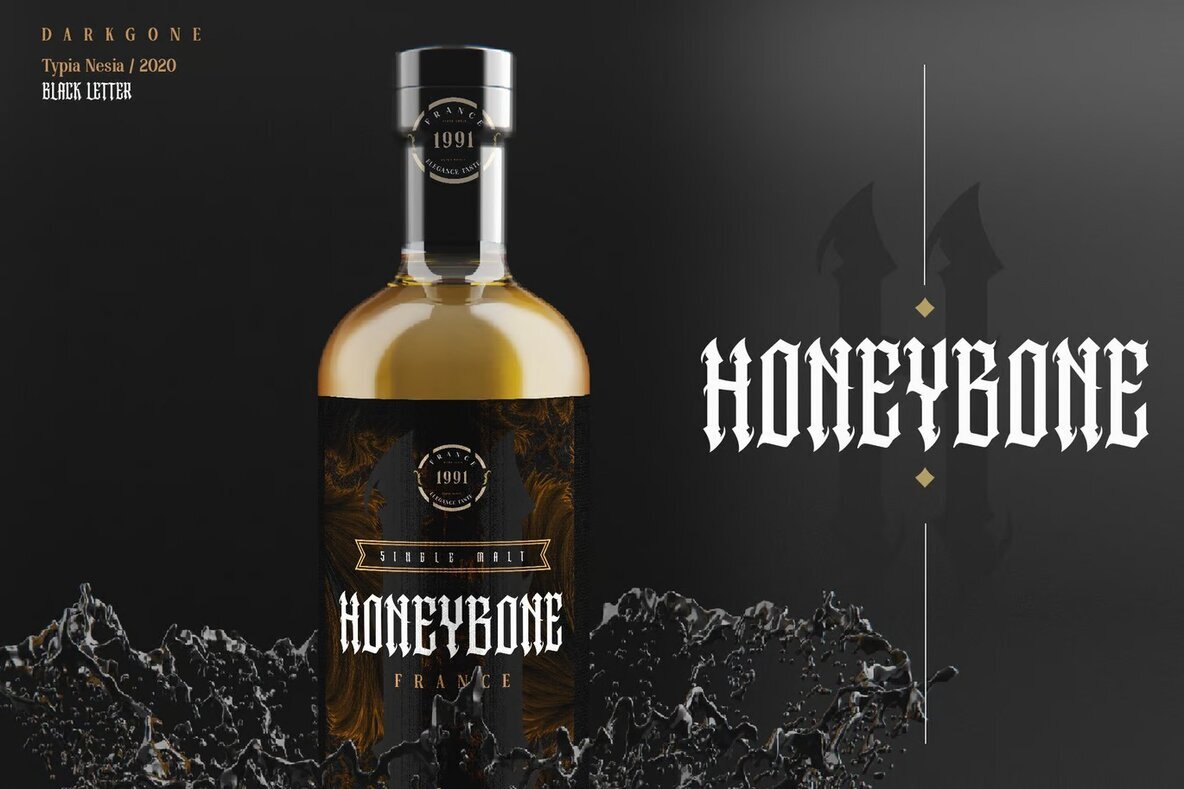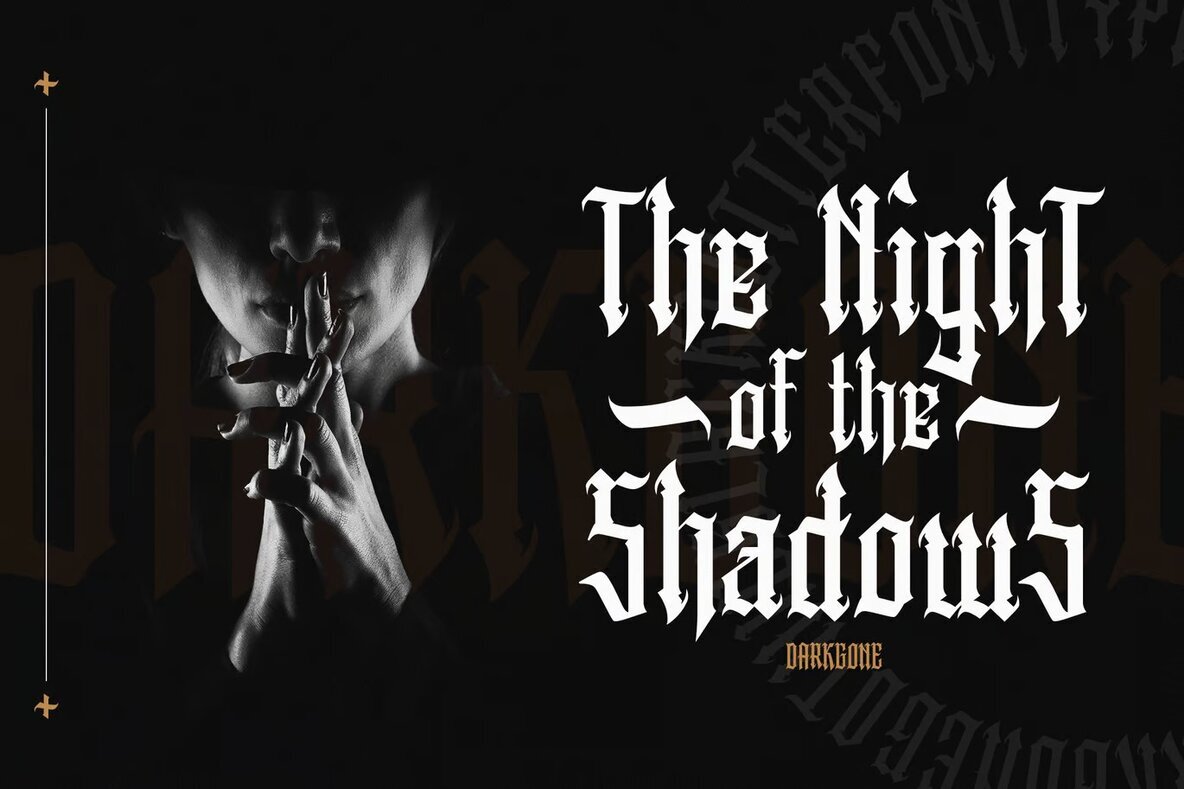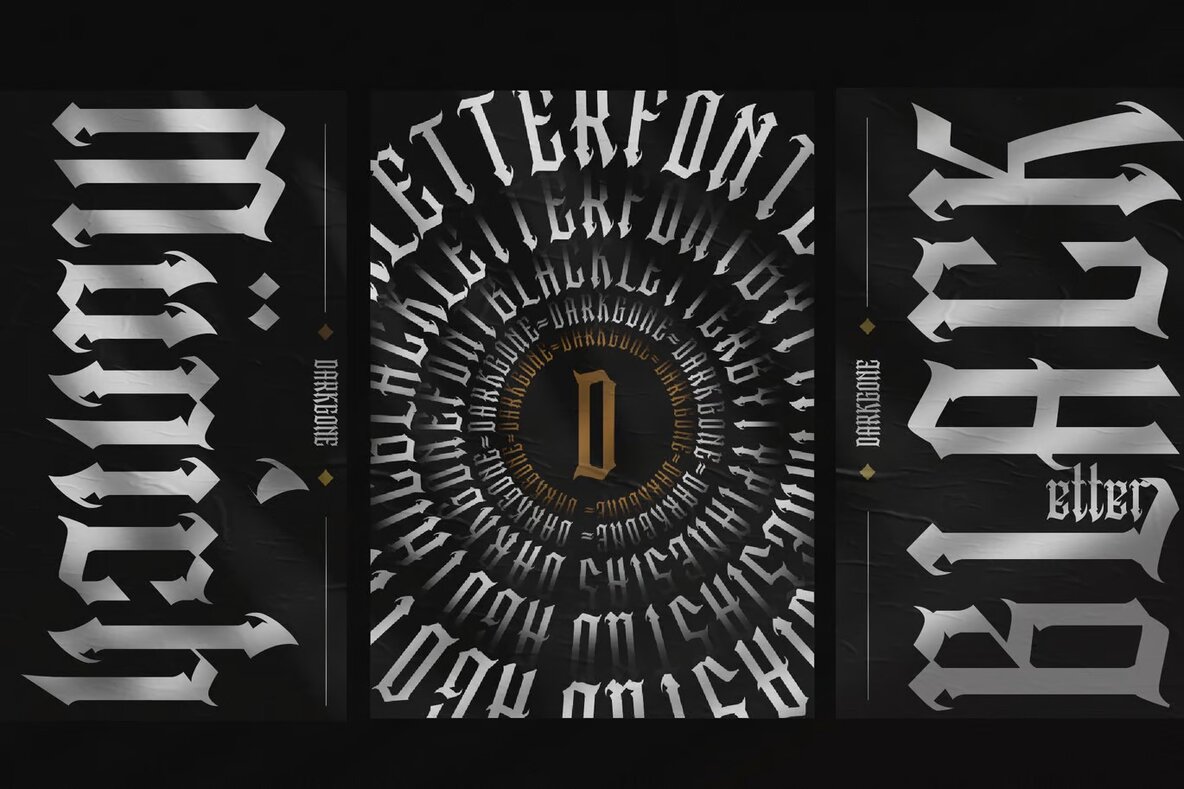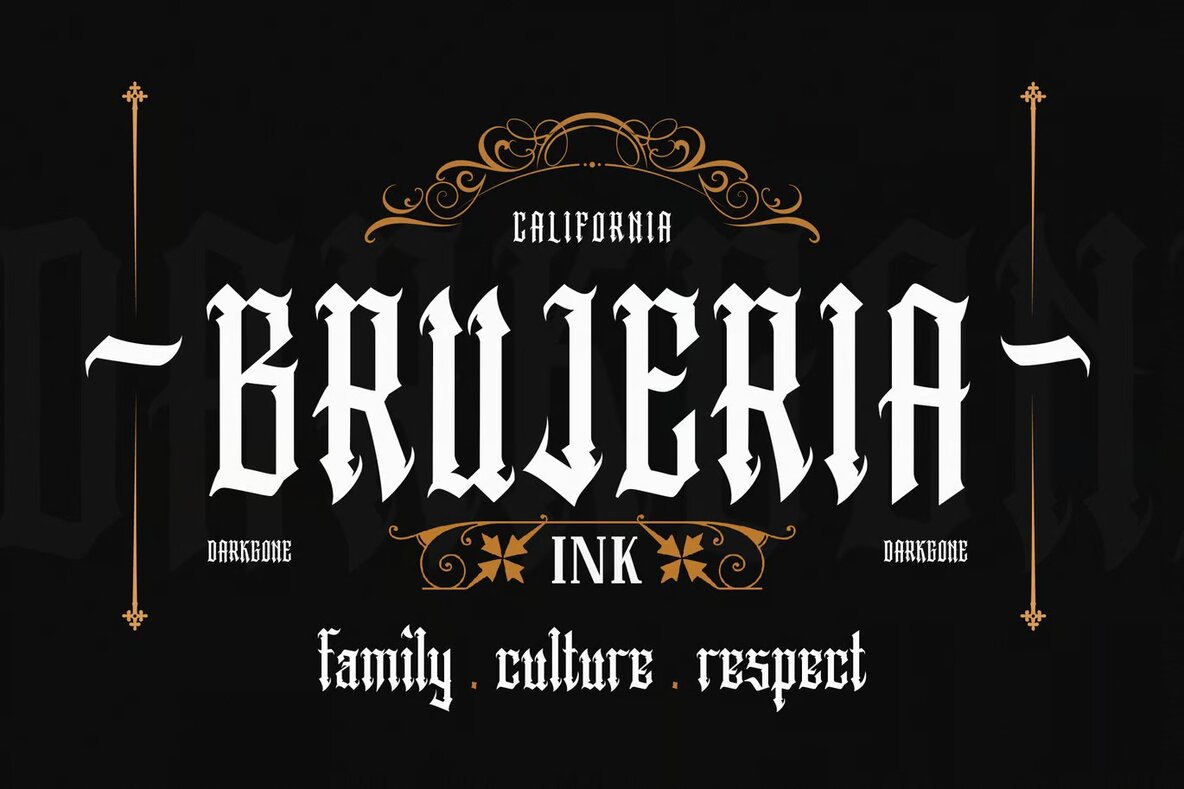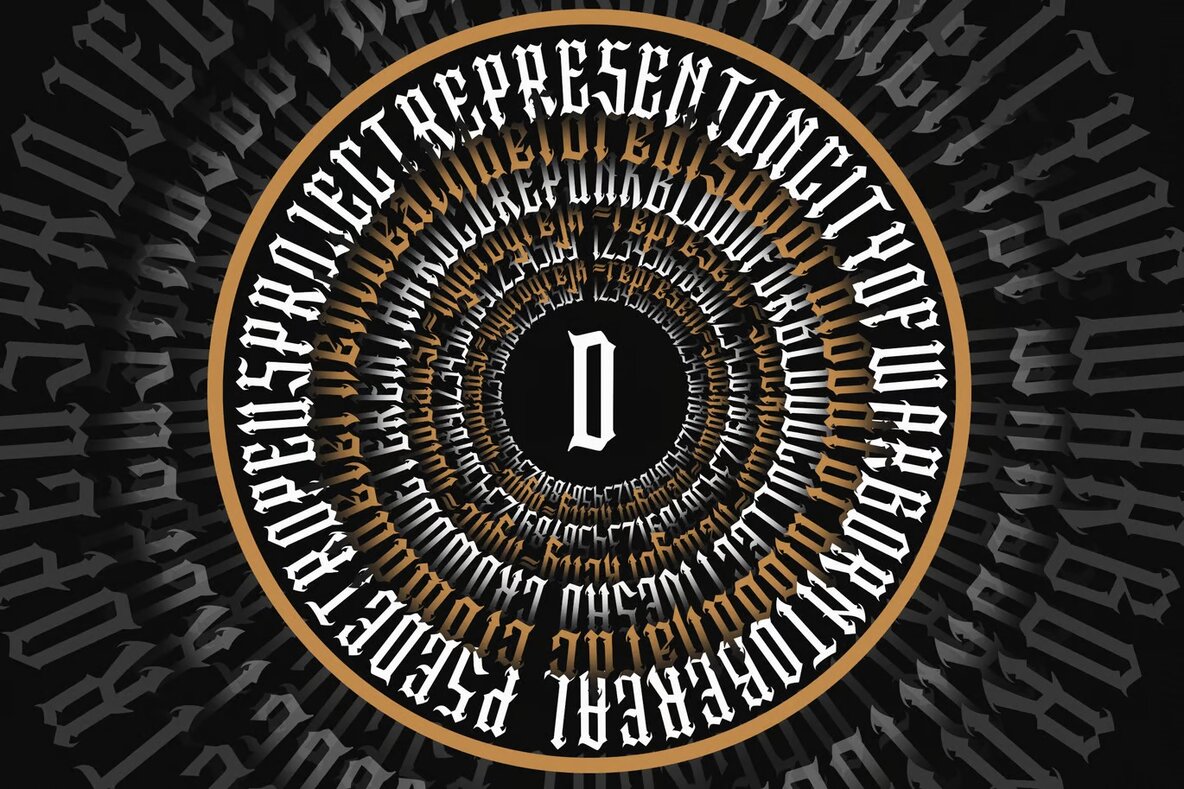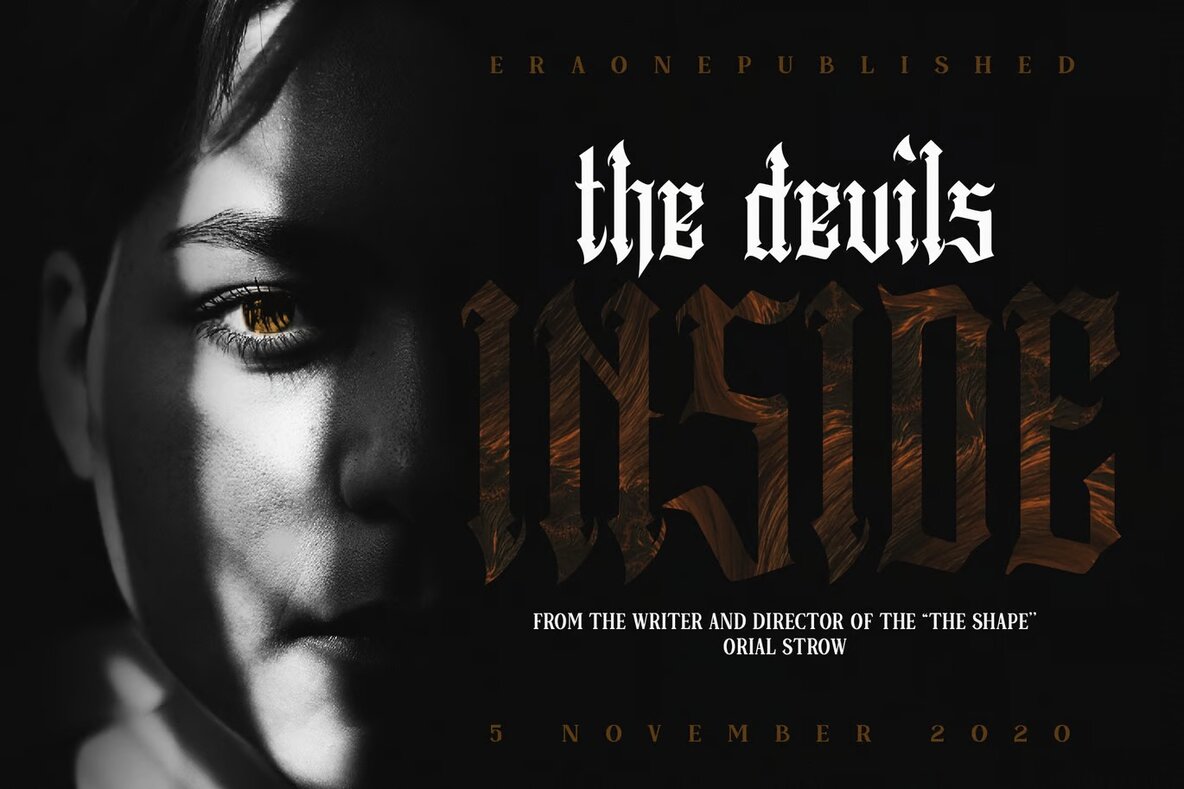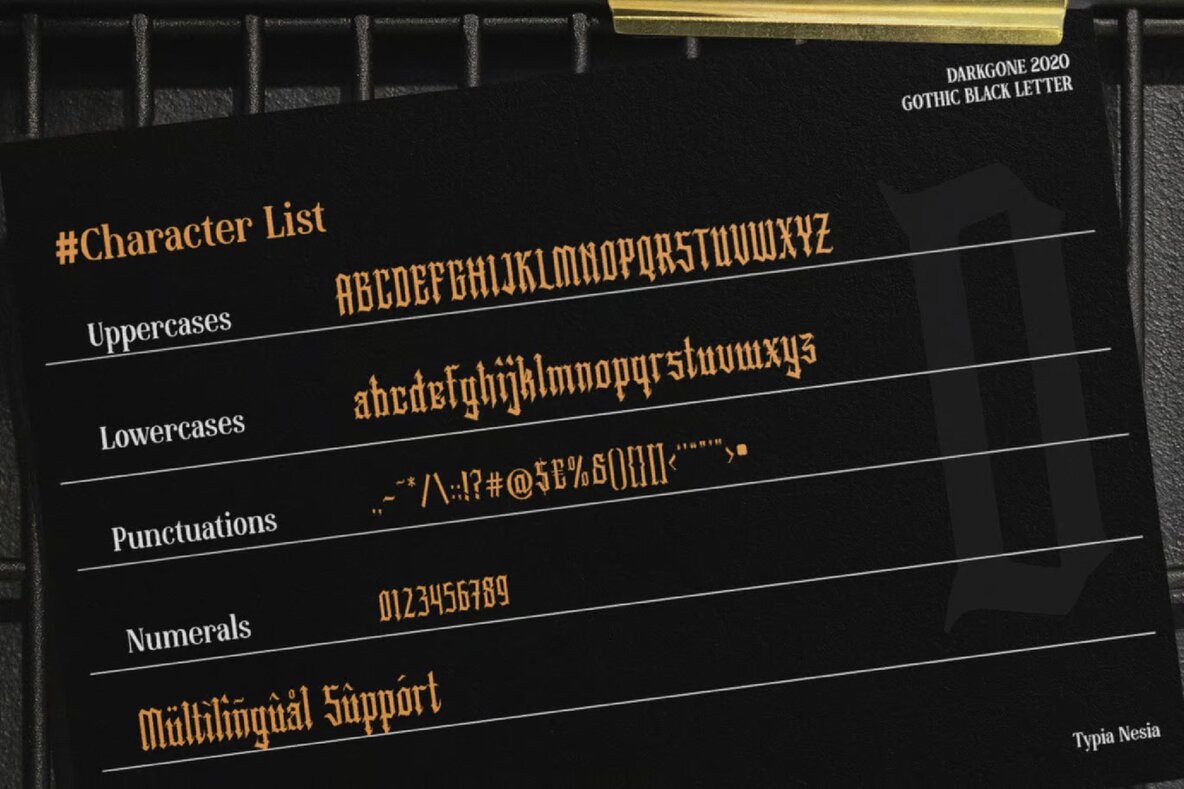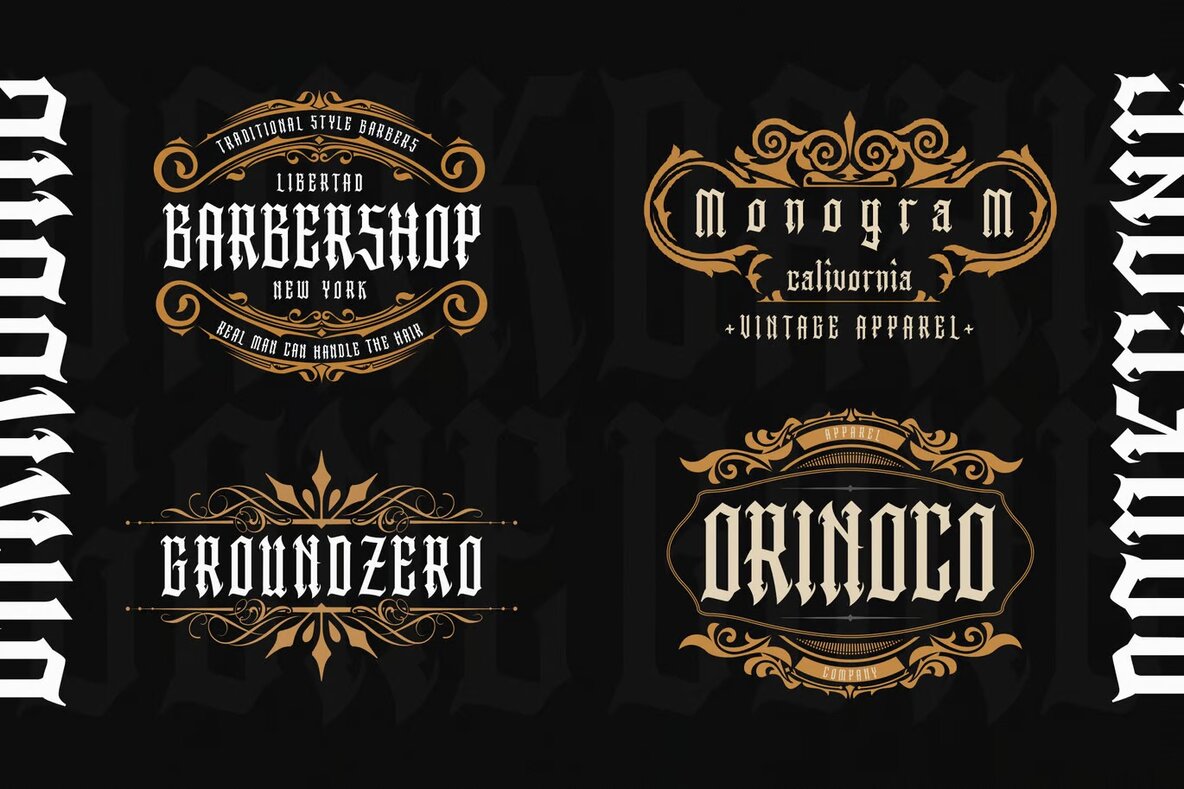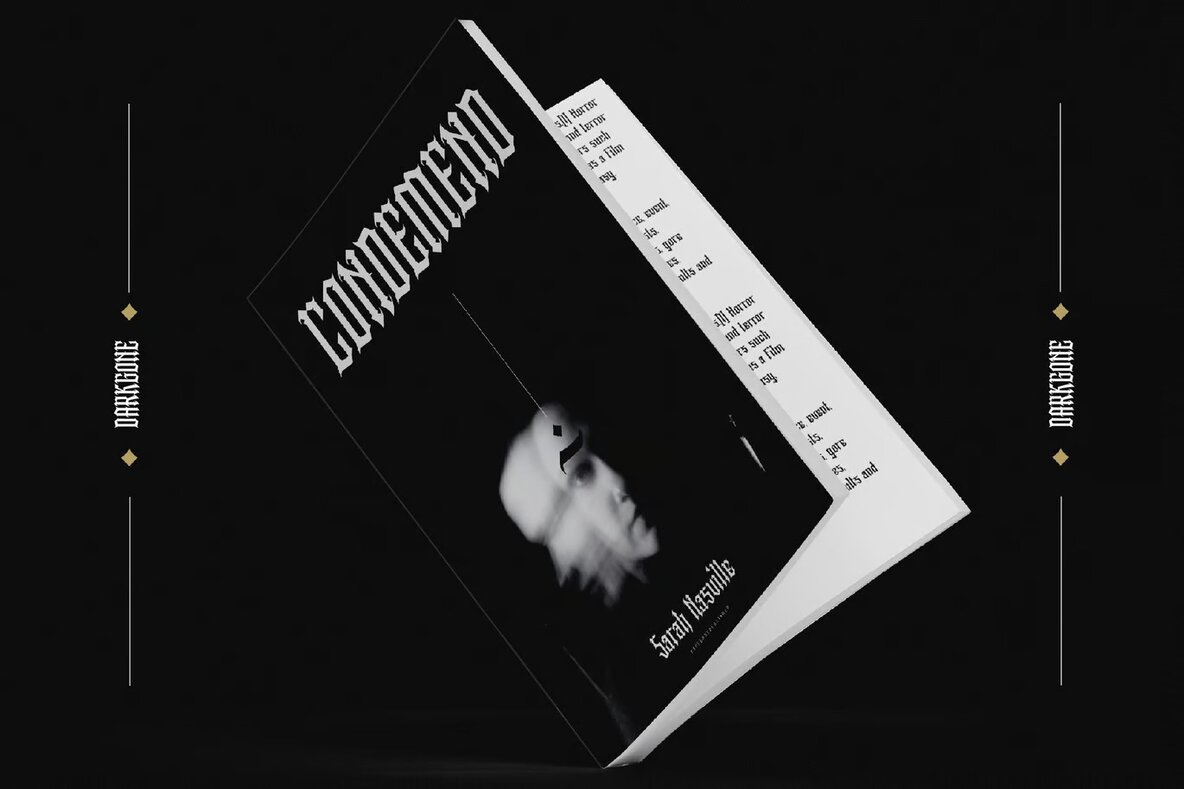
Darkgone Font
Darkgone is a striking Gothic Blackletter display font ideal for a variety of design applications. Whether you're working on a logo, branding project, modern advertisement, or seeking a haunting Gothic touch for Halloween, Darkgone offers the perfect aesthetic. Its bold style is well-suited for apparel, hardcore music projects, animation, or film promotions. This versatile font also enhances posters, book titles, editorial designs, and websites, adding an intriguing edge to custom mugs, pillows, t-shirts, and other creative projects.
With Darkgone, you'll find a font that caters to both traditional gothic and modern design needs, ensuring your work stands out. The intricate details of the letterforms make it a choice pick for designers aiming to craft a memorable visual experience. Utilize Darkgone to bring a unique and edgy look to any hand-lettered or Gothic-themed project.